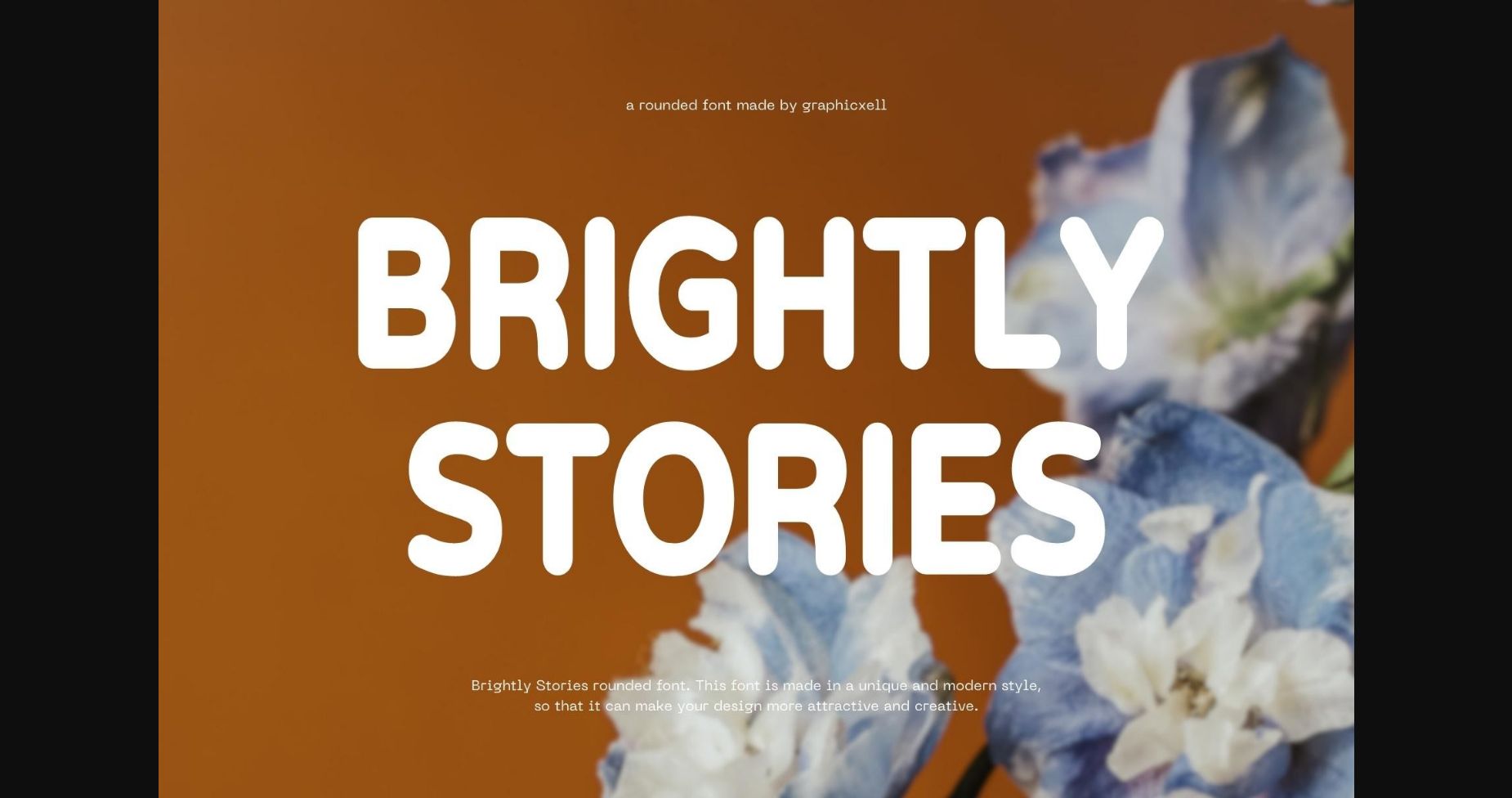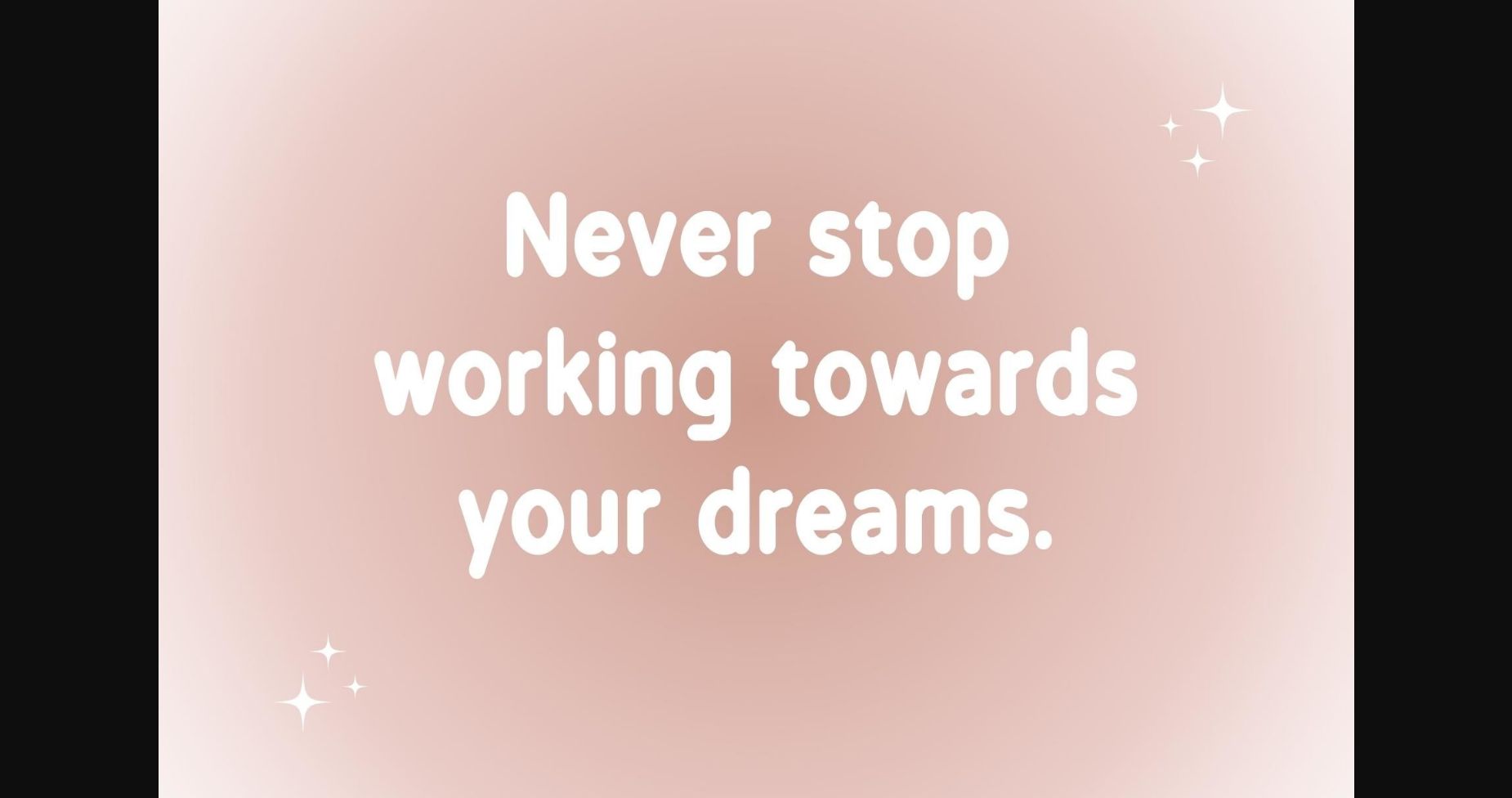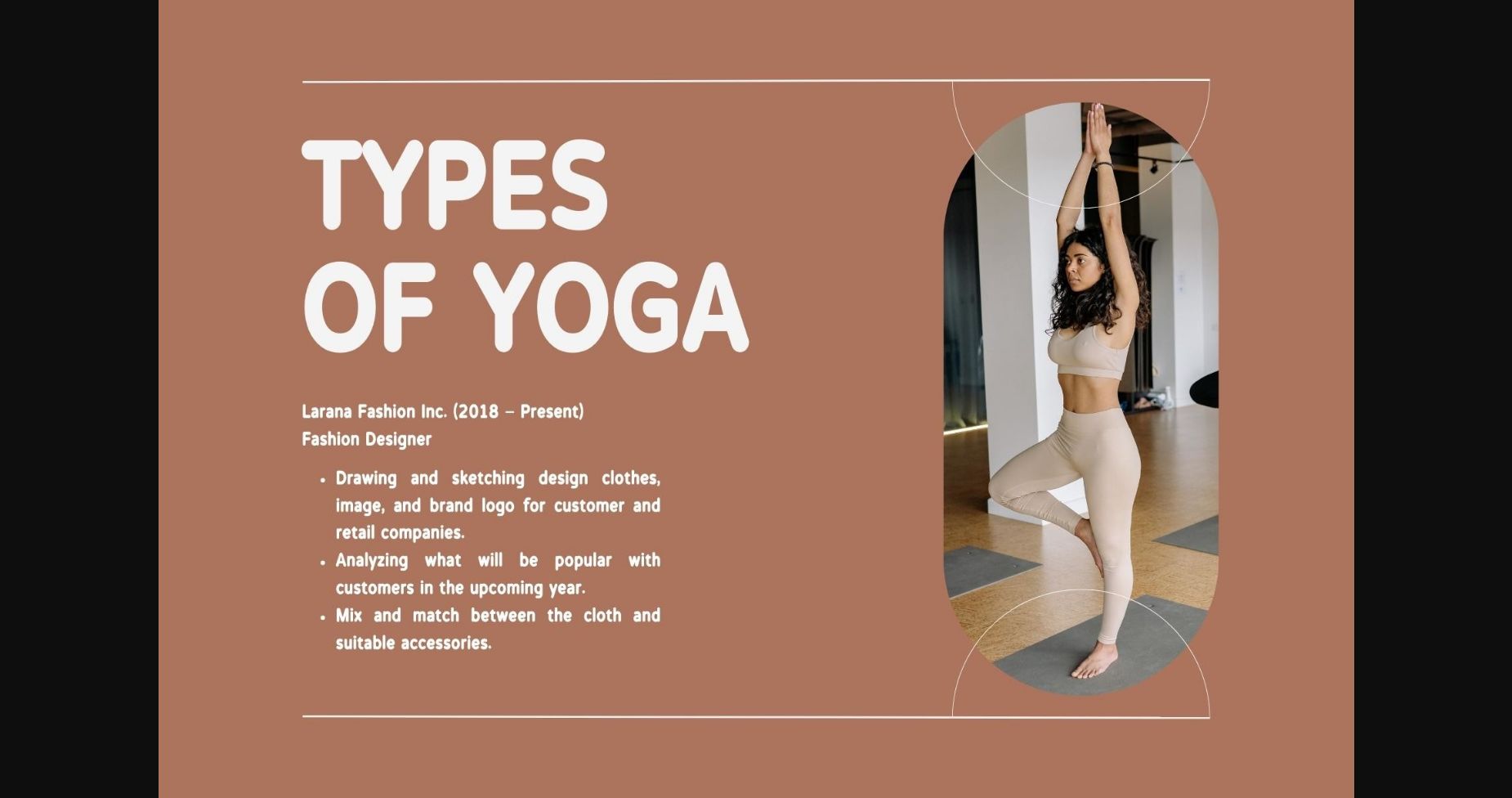
About Brightly Stories Font
Brightly Stories is a modern, round-ish sans serif font that brings a playful and friendly vibe to your designs. With its soft curves and balanced letterforms, it adds a touch of charm and approachability. Perfect for headlines, logos, and branding, Brightly Stories captures attention and invites engagement. Its versatility makes it suitable for a variety of creative projects, adding a touch of liveliness and character.